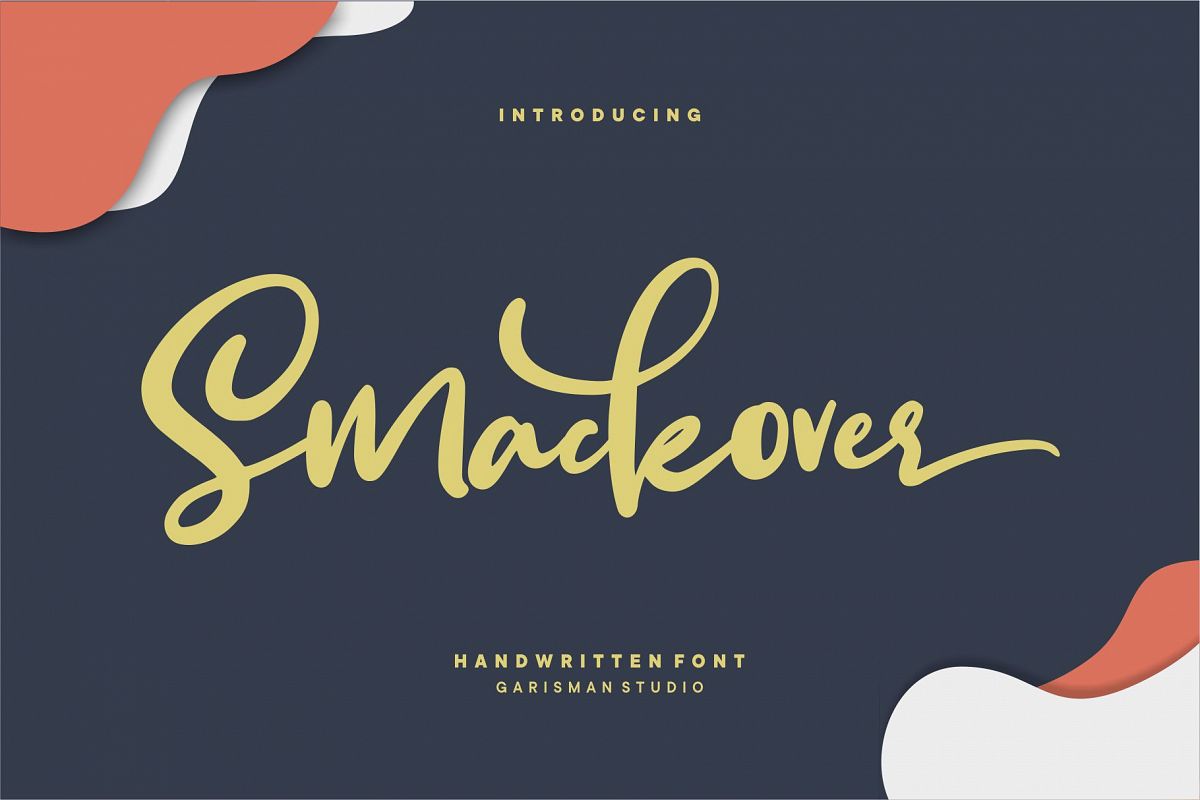
Smackover
Intriducing New Font: Smackover
Smackover is made natural handwritten with the ending swashes on Stylistic Set 01. With the unique Opentype in it and the ligature will add aesthetic value to your design product. Available in this file are Hellotropica Swash which you can unite into an amazing design.
• Versatile for poster, logotype, labels, book cover
• Detailed dry brush